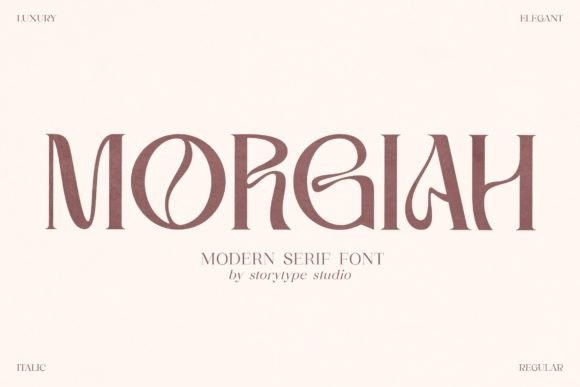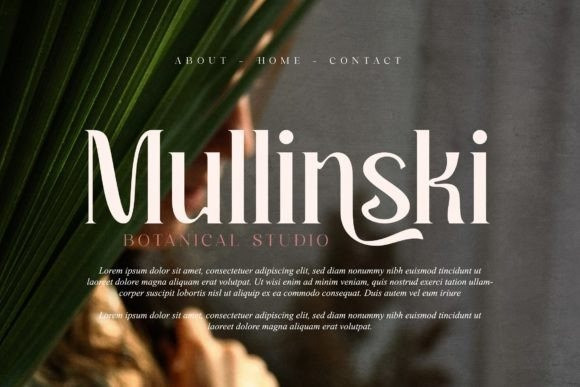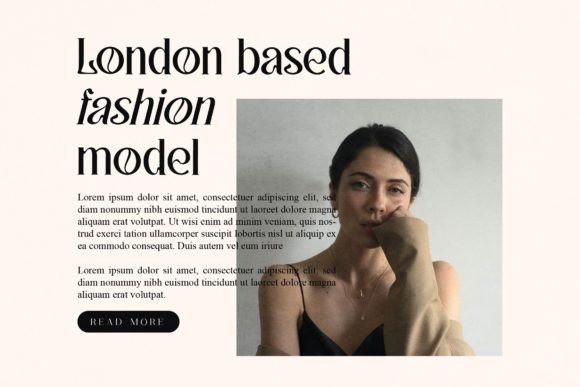
Morgiah Font
Morgiah is a modern and unique serif font perfect for elegant and luxury logos, book or movie title designs, fashion brands, magazines, clothes, lettering, quotes, and so much more.